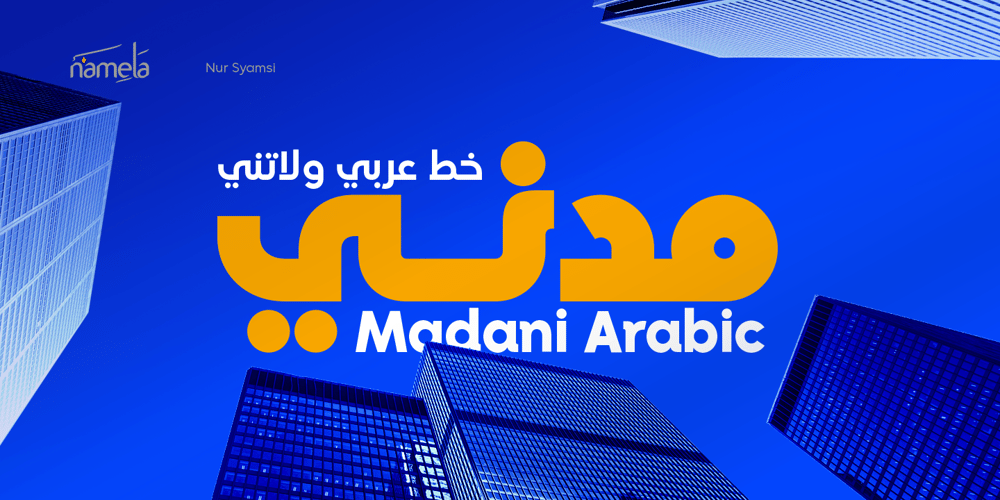
Madani Arabic Font Family was designed by Nur Syamsi and published by NamelaType. Madani Arabic contains 10 styles and family package options. Madani Arabic is new version of Madani with the addition of Arabic glyphs, for Arabic, Urdu, and Farsi.Basic form for arabic font is refers to the arabic kufi style, with a geometric approach to harmony with Latin.